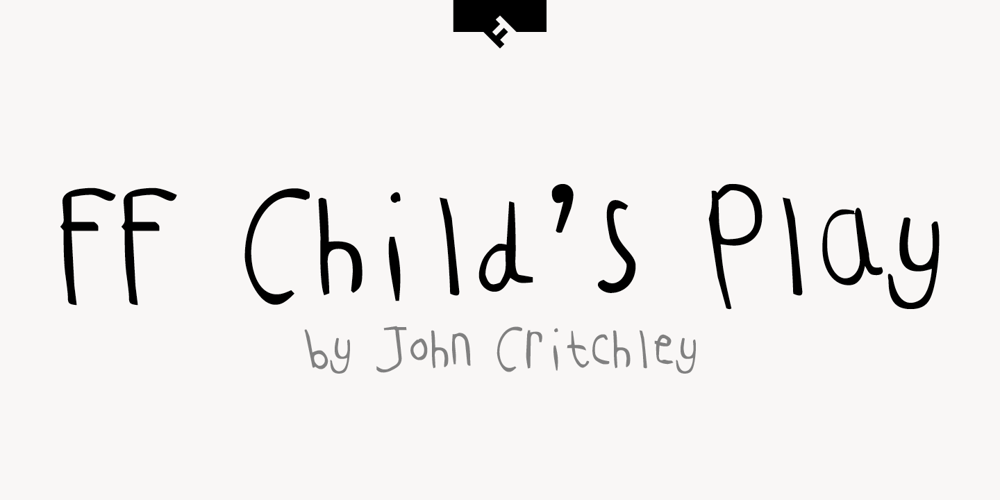
FF Child’s Play Font Family was designed by John Critchley and published by FontFont. FF Child’s Play contains 7 styles and family package options. British type designer John Critchley created this script FontFont in 1993. The family has 7 weights, and is ideally suited for advertising and packaging, editorial and publishing as well as poster and billboards. FF Child’s Play provides advanced typographical support with features such as ligatures and alternate characters. It comes with a complete range of figure set options – oldstyle and lining figures, each in tabular and proportional widths.